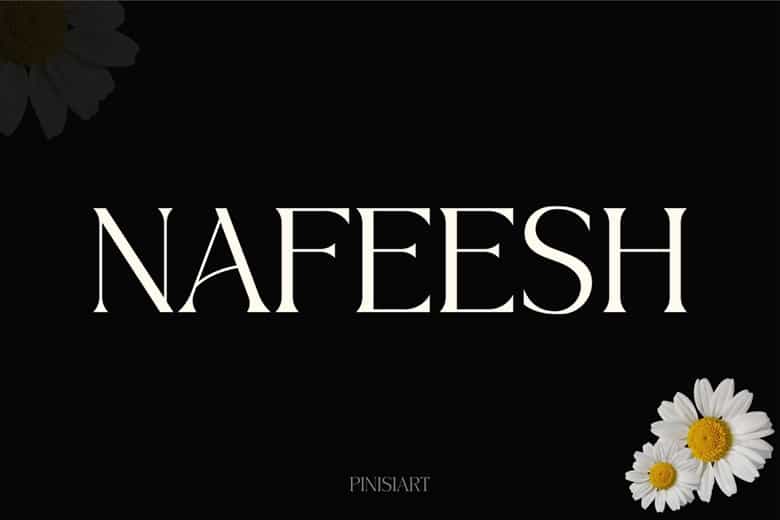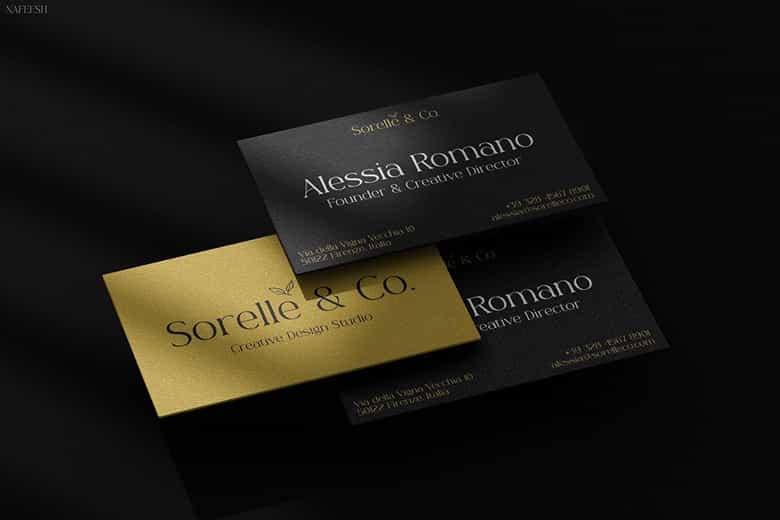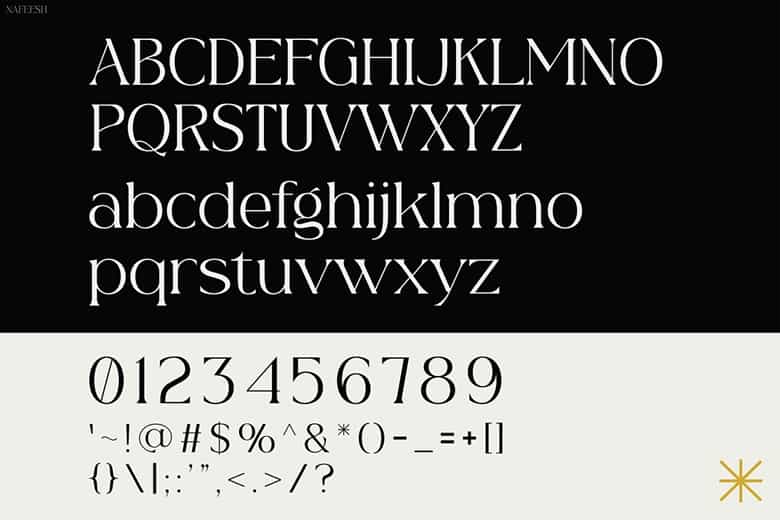
Nafeesh is a well policed serif font with a mixture of classic and modern design. It has been created using dramatic contrasts and sweeps of text and elegantly sweeps to bring a touch of immediate elegance to any design. This is due to its face harmony and smooth character lines, which lends a luxurious tone, great in premium content. Nafeesh is elegant because it is harmonious the very idea is incompatible with superficiality, there are solid serifs, yet the terminals are weak, evoking a combination of modernity and old classicism.